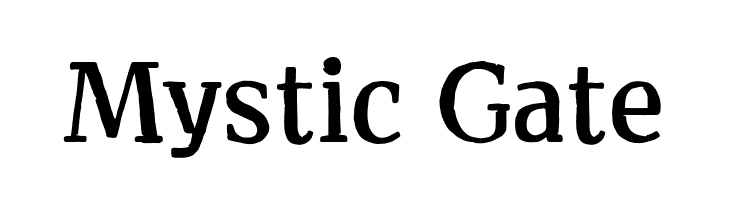
A classic serif font with a vintage, textured appearance.
A geometric and angular font with intersecting lines, offering a modern and artistic look.
A modern, elegant script font with flowing, handwritten characters.
A bold, italic font with a flowing and dynamic style.
A playful, handwritten-style font with flowing, cursive-like strokes.
A bold, geometric font with a retro-futuristic, industrial style.